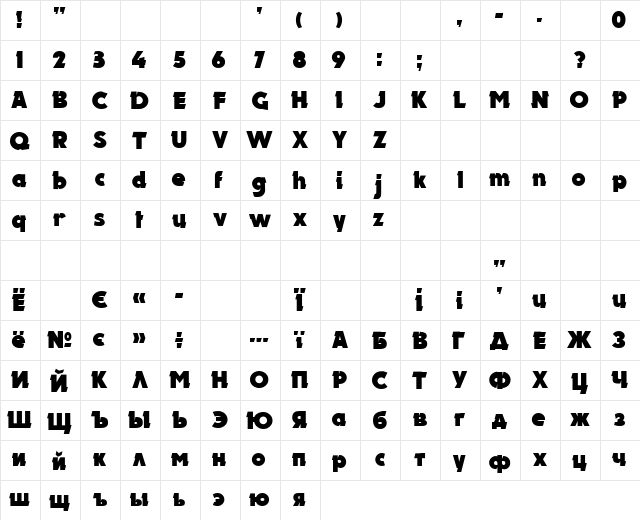
Electron Cyr Normal
Design Context for Electron Cyr Typeface
Electron Cyr offers clean, dependable letterforms without strong stylistic allegiance, making it a practical choice for designers who need flexibility.